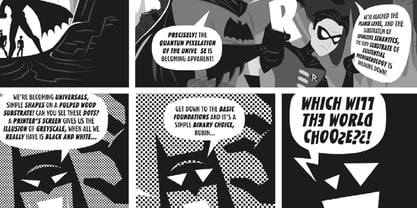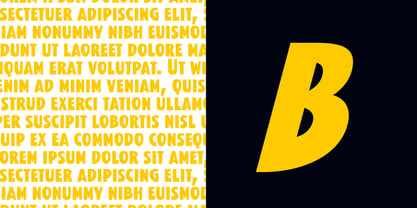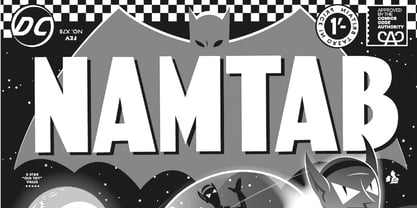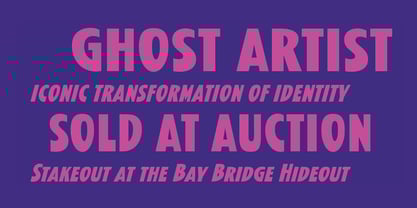
Kane
by Device
The Kane Font Family was designed by Rian Hughes and published by Device. Kane contains 2 styles and family package options.
Based on the Batman logo, this font (and a medium weight which is unreleased) were designed especially for Rian Hughes' "Batman: Black and White" comic book. It retains the signature reversed-stress weight distribution, seen to best effect on the A.